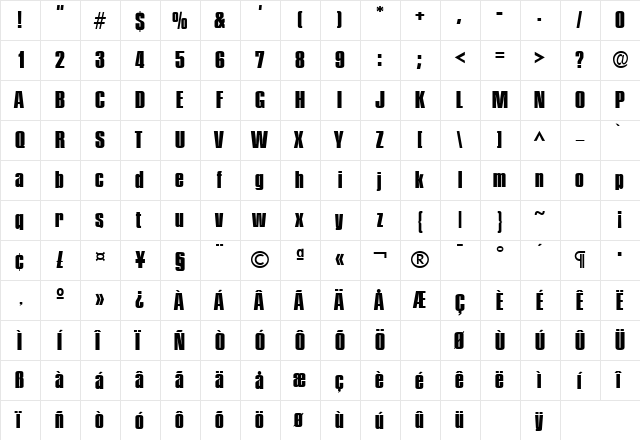
PlaketteFour Regular Font Preview
PlaketteFour Regular
PlaketteFour Regular Font Details
Design Context for PlaketteFour Typeface
PlaketteFour is a composed and adaptable typeface that performs quietly and consistently across a wide range of design contexts.
Pro Tip: Use PlaketteFour in both headline and body roles to test its range before committing to a single application.